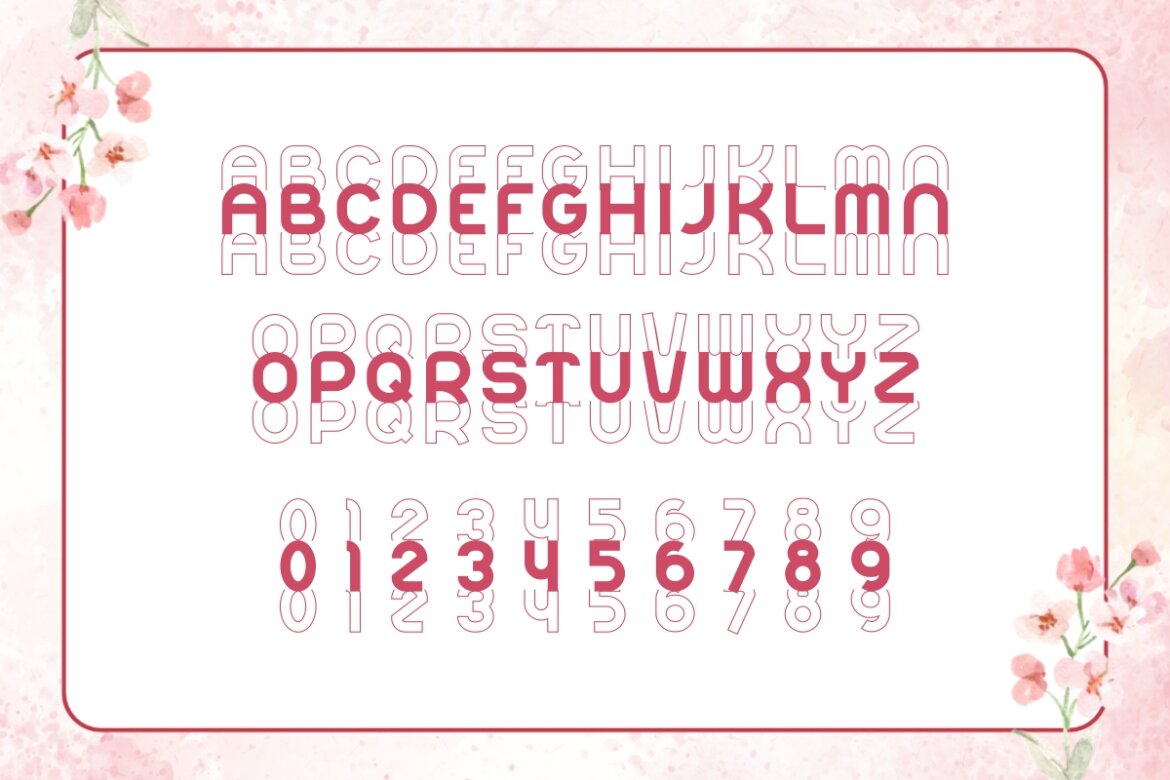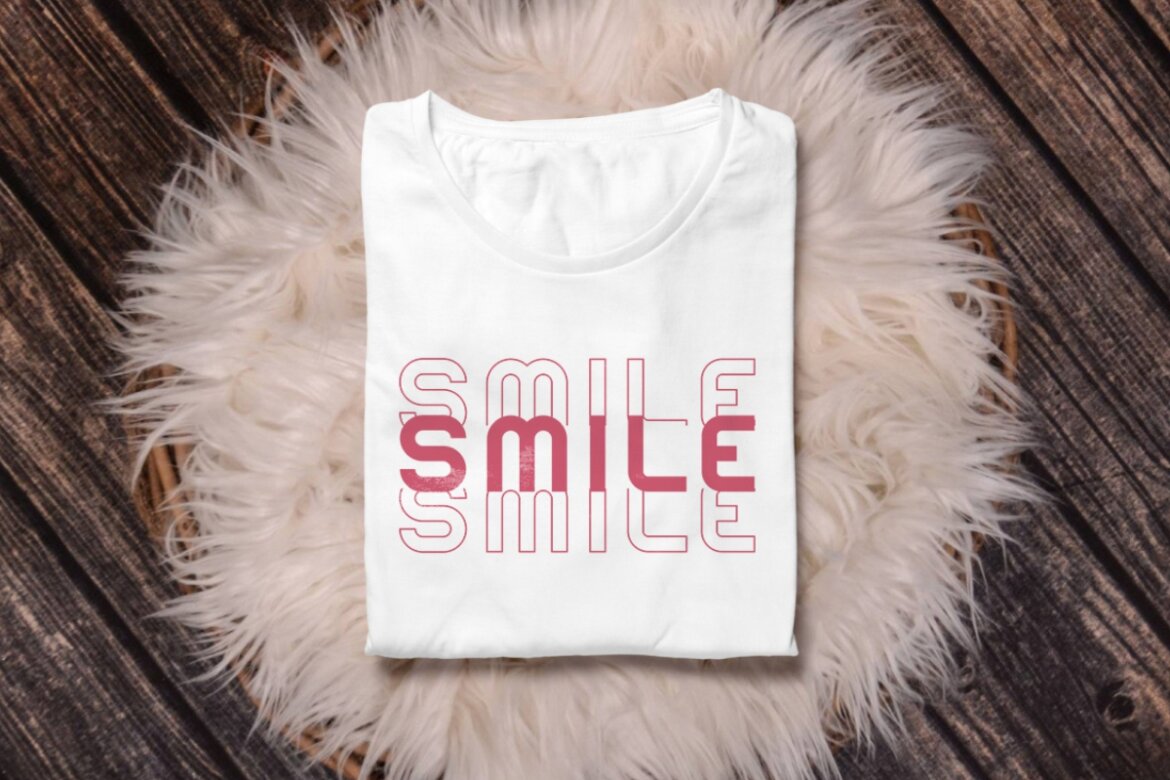
Flowers - Stacked FREE Font
Flowers
Flowers is a delightful and unique cute display font that captures a feeling of delicate, playful charm. Its defining feature is the dual-style presentation, offering both a solid, rounded version and a fine outline version of its all-caps letters, allowing for creative layering and striking visual effects. Perfect for feminine branding, greeting cards, nursery items, seasonal designs (Spring/Summer), crafting projects, and cheerful social media graphics. Flowers adds a gentle, artistic, and highly decorative touch to any project needing a sweet, soft, and memorable aesthetic.
• creative layering: includes both solid and outline fonts for easy, ready-to-use decorative layering effects.
• design versatility: the dual style allows for multiple visual looks (solid only, outline only, or layered) within one package.
• feminine appeal: instantly establishes a soft, charming, and aesthetically pleasing vibe for women's and children's products.
• high readability: simple, rounded shapes ensure the font remains clear and inviting despite its decorative nature.